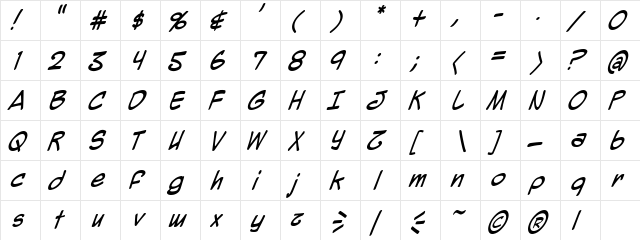
Mighty Zeo Italic
Design Context for Mighty Zeo Typeface
Mighty Zeo takes a measured approach to typography — its balanced proportions and neutral character make it a reliable workhorse for both digital and print work. Its italic angle brings a sense of urgency and motion to the letterforms.
Pro Tip: Try Mighty Zeo for annotation and caption copy alongside an upright companion — the contrast in angle creates a dynamic but ordered typographic system.